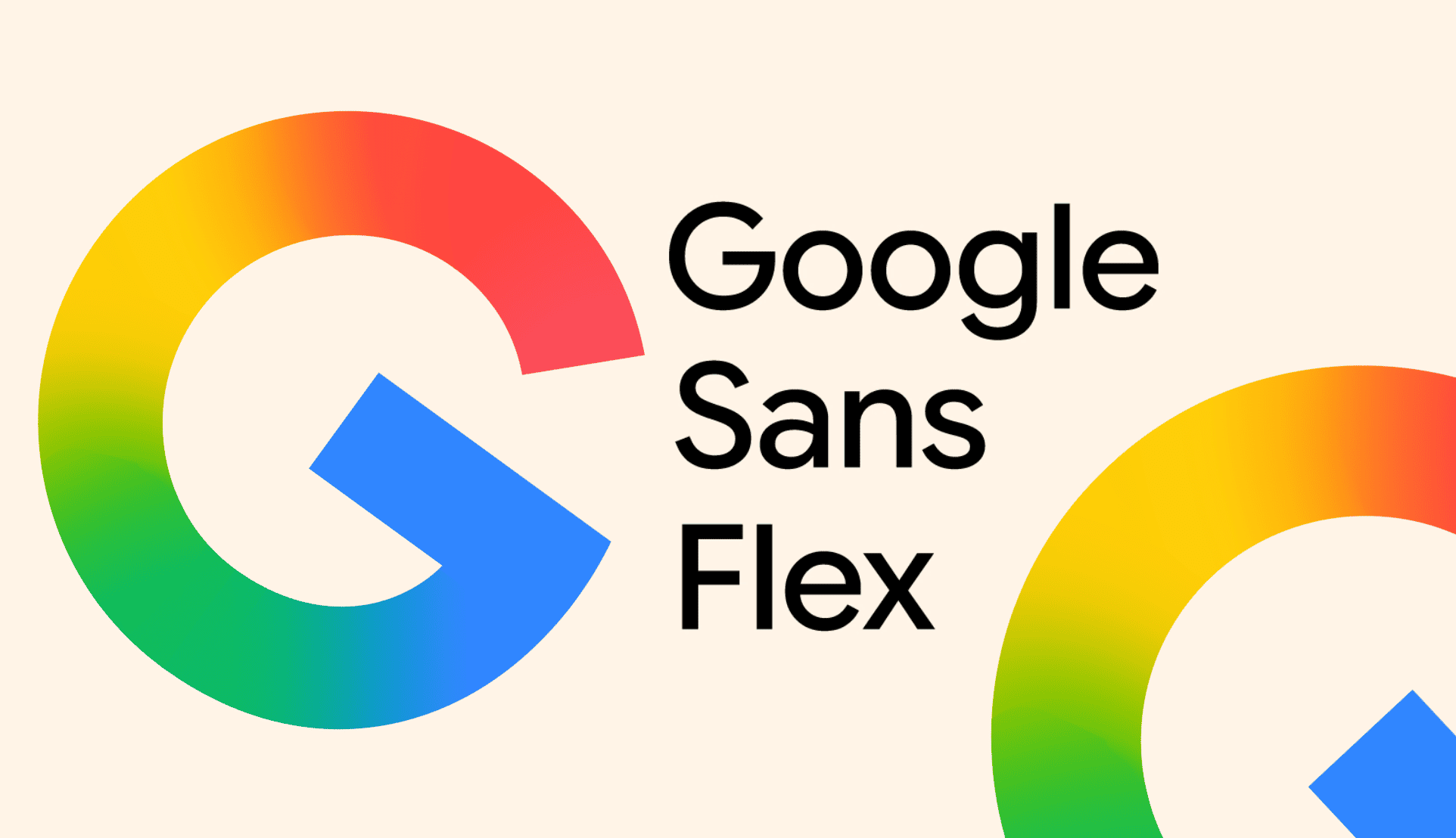
Google’s variable font ‘Google Sans Flex’ is now open source
The iconic font used across all Google products, from search to wallet.
Google Sans Flex Open Source
Google has made its variable brand font, Google Sans Flex, open source, a game-changer for designers and developers alike, plus free for anyone to download and use. Apparently, it is one of the most-served fonts on the internet, with 120 billion font requests a month.
This “variable” font is much more than a standard font – it allows precise control over thickness, width, and optical size. It is designed to adapt to the environment in real time – improving readability on small screens, while remaining elegant in large headlines.